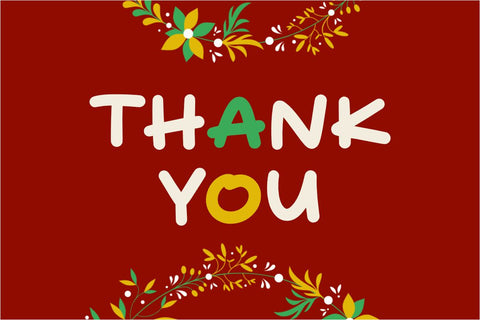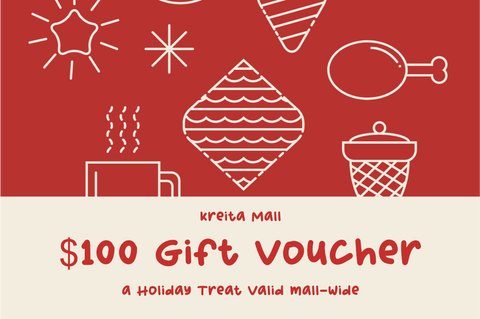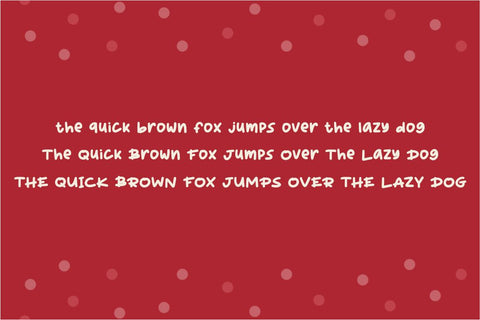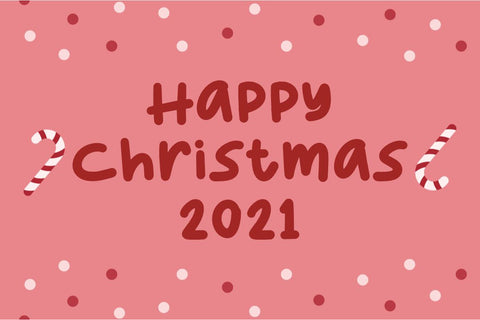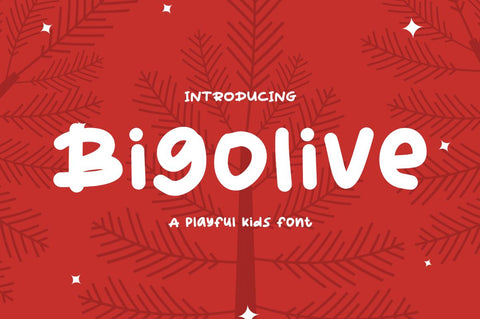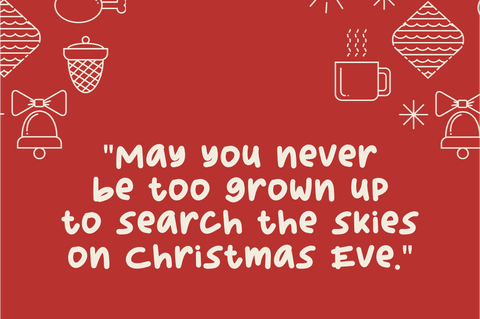
Bigolive
Bigolive is a cute and cute font. with a playful font suitable for children and women. This font is suitable for t-shirts, food packaging, food logos, t-shirts, quotes, mugs, cricut, and many more.